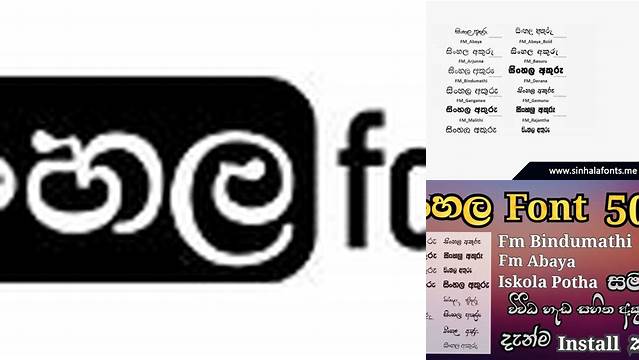
Free FM Sinhala Fonts: Download & Installation Guide
FM Sinhala Fonts Pack: Free Download & Guide for Beginners
Hey guys, are you looking to spice up your Sinhala text with some cool fonts? You've come to the right place! This article is all about FM Sinhala fonts pack free download and how to get them up and running on your computer or mobile device. We'll dive into the world of Sinhala typography, explaining what FM fonts are, how to grab them for free, and how to install and use them like a pro. Whether you're a blogger, a graphic designer, or just someone who loves to express themselves in Sinhala, this guide is your one-stop shop for all things FM font-related. So, buckle up, and let's get started on this font-tastic journey!
What are FM Sinhala Fonts? The Basics
Alright, let's get down to the nitty-gritty. What exactly are FM Sinhala fonts? Well, the "FM" in FM Sinhala fonts usually refers to the font style or the developer who created them. These fonts are specifically designed to display the Sinhala script, which is used to write the Sinhala language spoken in Sri Lanka. These fonts are a must-have if you're working with Sinhala text on your computer or mobile device. Sinhala fonts come in many different styles and weights, from the classic and elegant to the modern and funky. Each font has a unique personality, and they can be used to create a wide range of visual effects, from headings and body text to logos and graphic designs. Because each character has its own unique glyphs. When you’re using Sinhala fonts, the letters, vowels, and other characters appear correctly. Otherwise, you’ll just see a bunch of meaningless boxes or symbols, which is not a good look for anyone. The right font can make your Sinhala text pop and give it a unique personality that will make it stand out from the crowd. So, by now, you should have a pretty good idea of what FM Sinhala fonts are and why they're essential for anyone working with Sinhala text. Now, let's move on to the fun part: finding and downloading these awesome fonts!
Tips for Choosing the Right FM Sinhala Fonts
Choosing the right FM Sinhala fonts for your project can make or break its visual appeal. So, here are some tips to help you choose the perfect font. First, consider the purpose of your project. Is it for a formal document, a casual blog post, or a creative design? Different fonts convey different moods and tones. For formal documents, you might choose a classic and elegant font. For a casual blog post, you might choose a modern and friendly font. And for a creative design, you might choose a unique and eye-catching font. Next, consider the readability of the font. Is it easy to read at different sizes and on different devices? Choose a font that is clear and legible, especially for body text. Avoid fonts that are too ornate or difficult to read, as they can strain the eyes. Also, consider the style of the font. Does it match the overall design of your project? Choose a font that complements the other elements of your design, such as the colors, images, and layout. Don't be afraid to experiment with different font combinations to create a unique look. You can use a different font for headings and body text. And finally, test the font on different devices and screen sizes to make sure that it looks good everywhere. With these tips in mind, you'll be able to choose the perfect FM Sinhala fonts for any project.
- Where can I find FM Sinhala fonts for free download? You can find them on Google Fonts, dafont.com, FontSpace, Sinhala language websites, and design forums. Always double-check the license before using them.
- How do I install FM Sinhala fonts on my computer? Download the font files (.ttf or .otf), right-click, and select "Install" on Windows. On macOS, double-click the font file and click "Install Font" in Font Book.
- How do I install FM Sinhala fonts on my phone? You'll typically need a font manager app (iFont or FontFix) from the app store, as there's no built-in font installer. You will download and install the fonts using the app.
- Why is my Sinhala text showing up as boxes? Your software might not support Unicode. Make sure your software supports Unicode, and you've selected the correct FM Sinhala font from the list. Try restarting the software or your computer if that doesn't fix it.